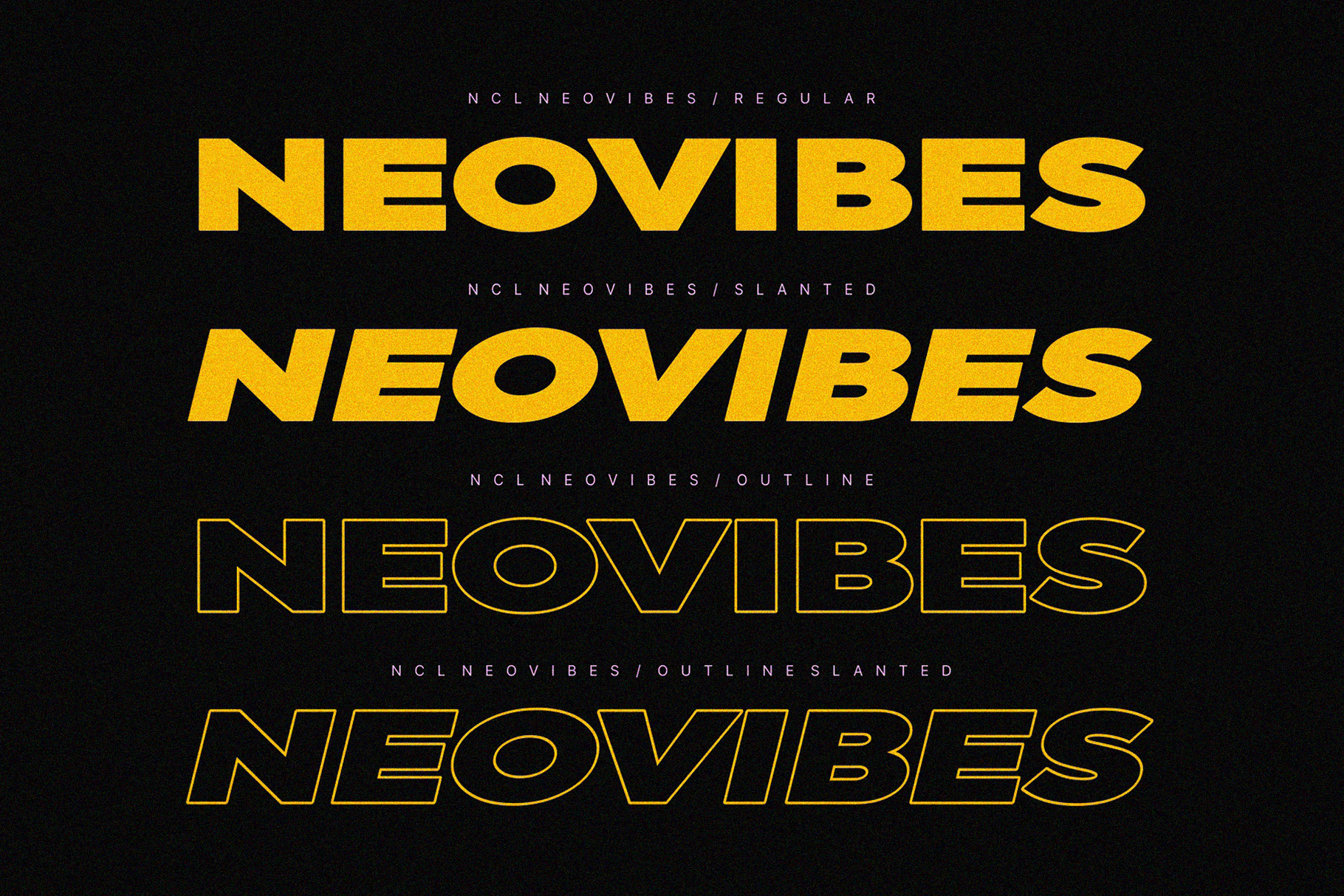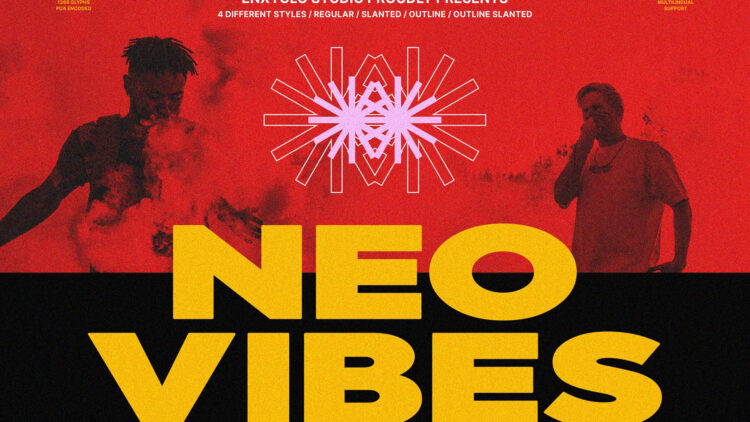
NCL NEOVIBES is a bold expanded sans modern font. Masterfully designed to become a true favorite, this font has the potential to bring each of your creative ideas to the highest level! It was purposely crafted to be used in large point sizes, although it doesn’t lose its magic in small point sizes. It is perfect for headline, billboard, magazines, website, titles, poster, branding, and logos. No matter the topic, this font will be an incredible asset to your fonts’ library, as it has the potential to elevate any creation. With this beautiful font, absolutely you can make your project stand out from the rest.
4 Style: Regular, Slanted, Outline, Outline Slanted
Contains 342 Glyphs for Each Style and 1368 Glyphs for Total
Uppercase & Lowercase
Numeral, Punctuation & Symbols
- Multilingual Support